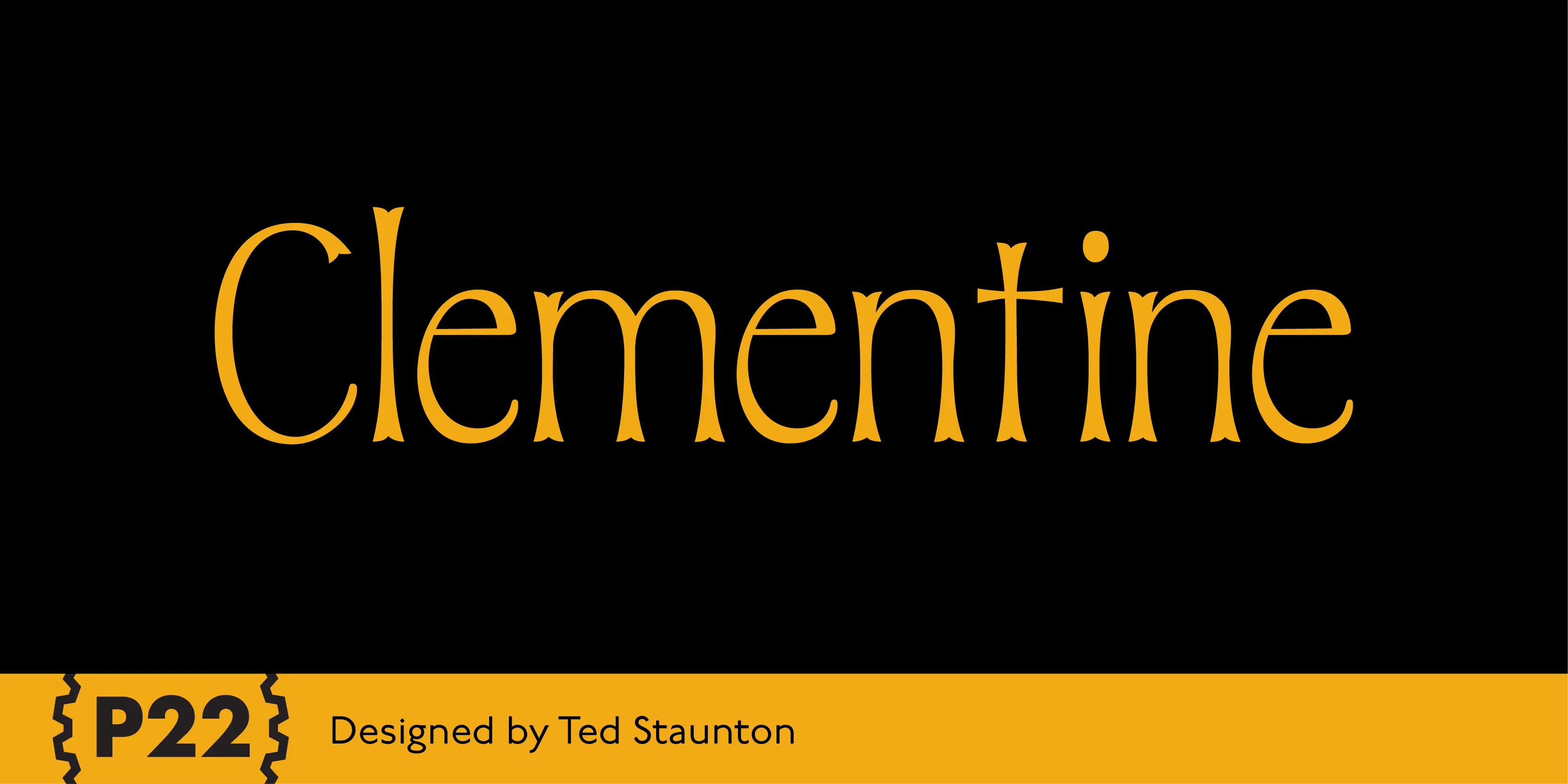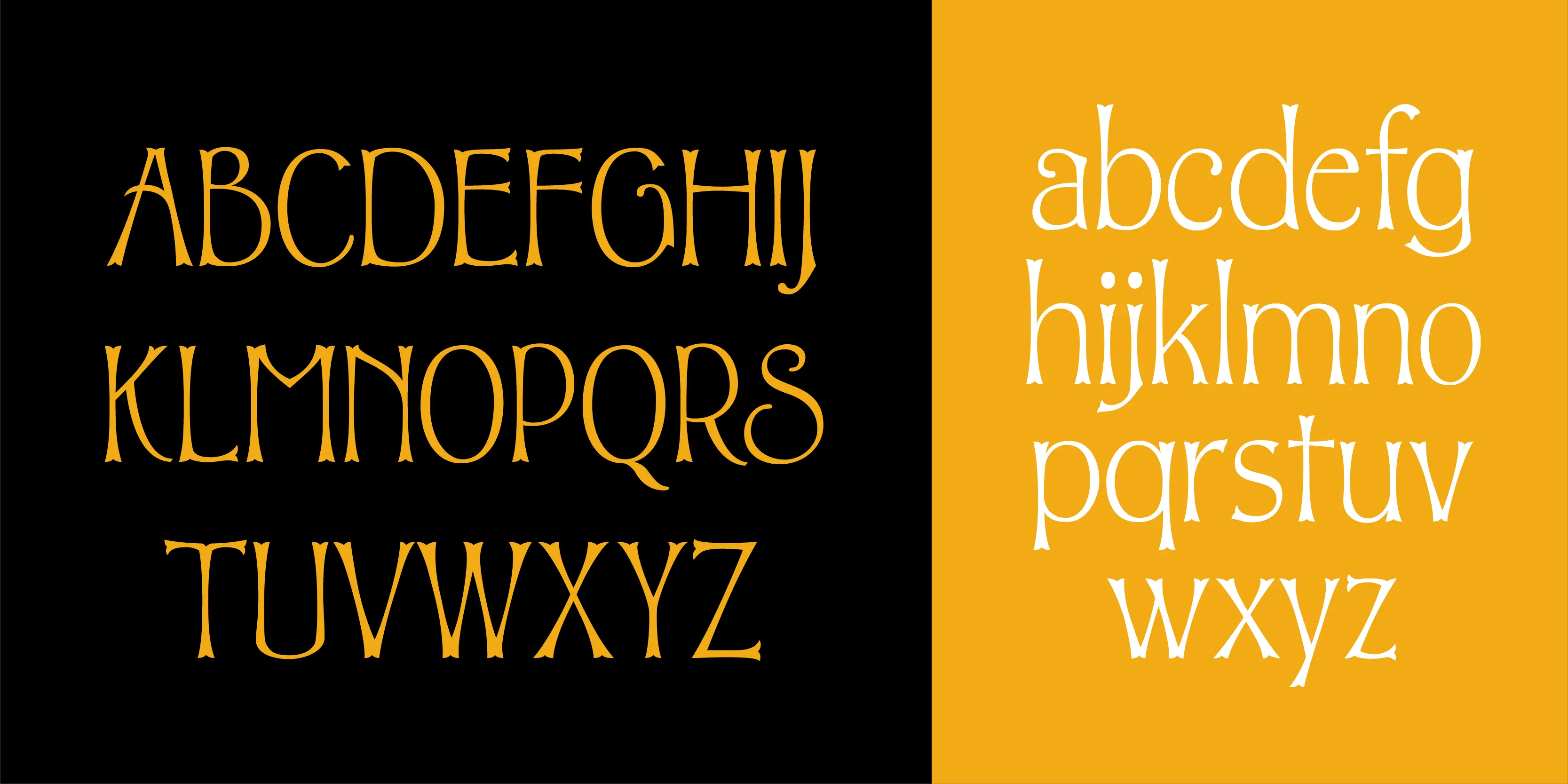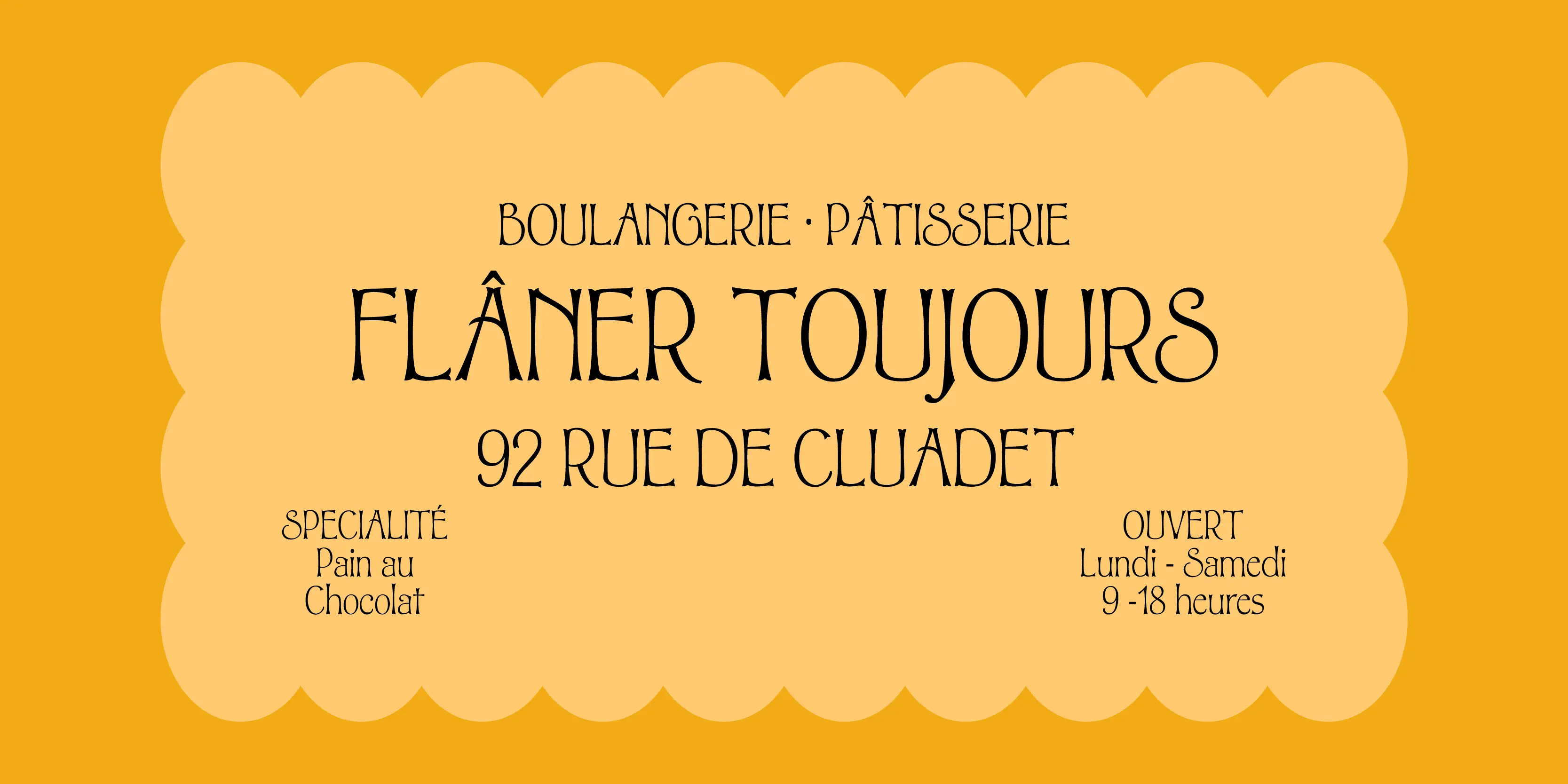
Clementine Font Family
• Clementine Curly
• Clementine Sans
Clementine
Clementine is a bit of Victoriana whimsy in this set of two fonts heavily inspired by a variety of 19th Century faces without being a direct revival of any one in particular. Undulating curves, swirly terminals, and bifurcated semi-serifs give these faces plenty of character.